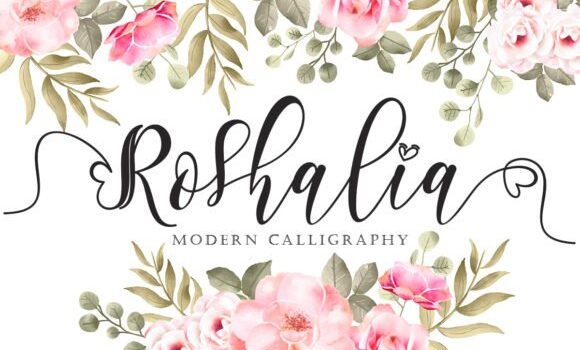
roshalia
Roshalia Font – Free Download Introduction to Roshalia Font Roshalia is a romantic and sweet calligraphy typeface with characters that dance along the baseline. 📸 Preview Gallery 6 images 📌 Product Name Roshalia Font 👤 Author yogaletter6 📂 Category Explore